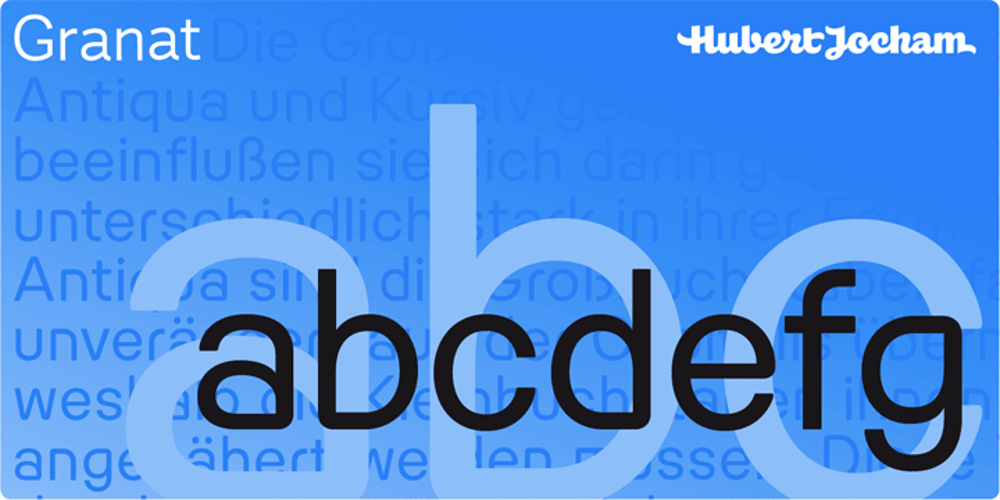
Granat Font Family was designed by Hubert Jocham and published by Hubert Jocham Type. Granat contains 14 styles and family package options. The idea for Granat goes back to my mysterious typeface Telepiu and later Teleneue. The straight horizontal bars in combination with the round joins create a very unique character. With Granat I wanted to push this style even further. Like in Teleneue Granat comes with a monocase version without any ascenders or descenders for all 7 weights from Regular to Ultrabold.